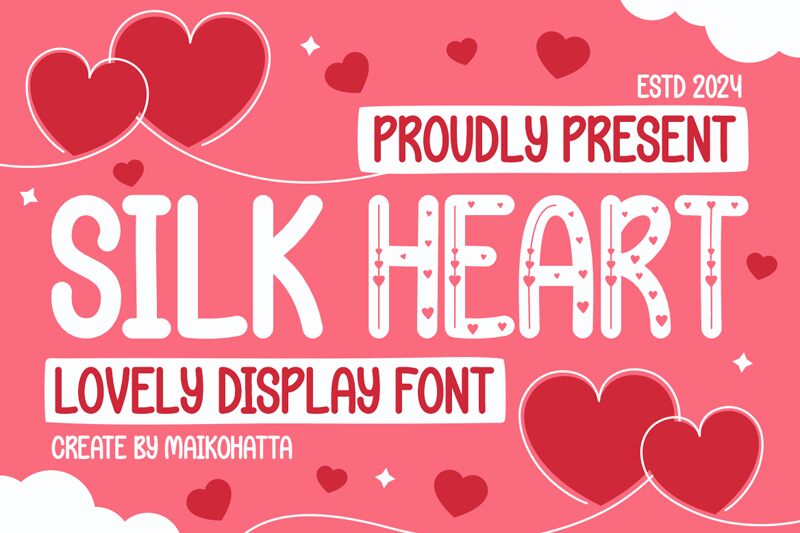
SILK HEART
Silk heart font by Gilang Ternadho is a free Valentine display font. Built for sweet, high-impact moments, its tall, rounded strokes and pillowy curves feel soft to the touch—like wet ink settling into paper. Subtle hand-drawn wobble gives it warmth without clutter, and the steady vertical rhythm keeps headlines lively yet readable at a glance.
Using Silk heart, your designs lean charming rather than saccharine—great for greeting cards, love notes, wedding signage, gift tags, candy or flower packaging, and playful social posts. This free font shines when set large with a hair of extra tracking. Pair it with a clean, light geometric sans for body copy to let the bubbly forms do the flirting while the details stay crisp.